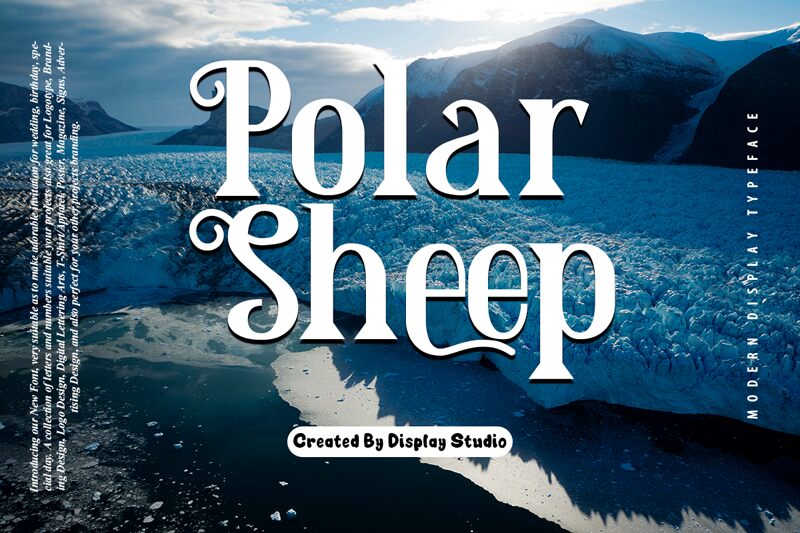
Polar Sheep
Polar Sheep, designed by Display Studio, is a modern display font with a bold and narrow width. Its unique style makes it perfect for creating eye-catching logos, titles and headings for posters and websites. It's also great for adding some personality to t-shirt designs.